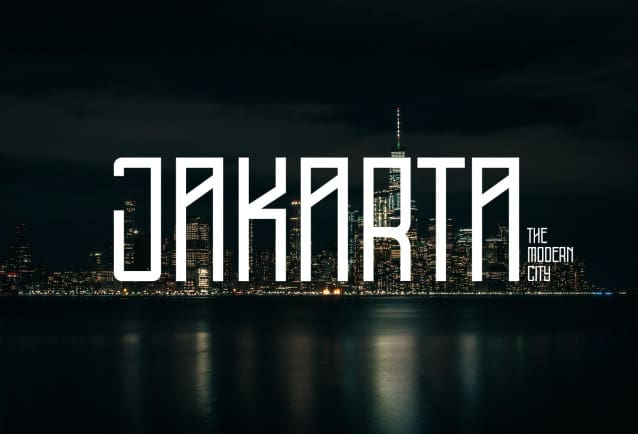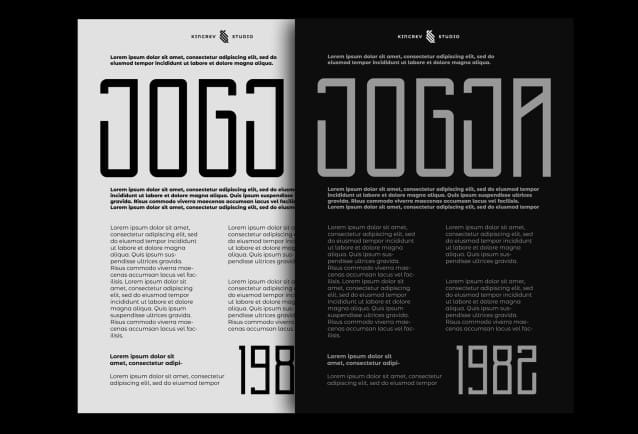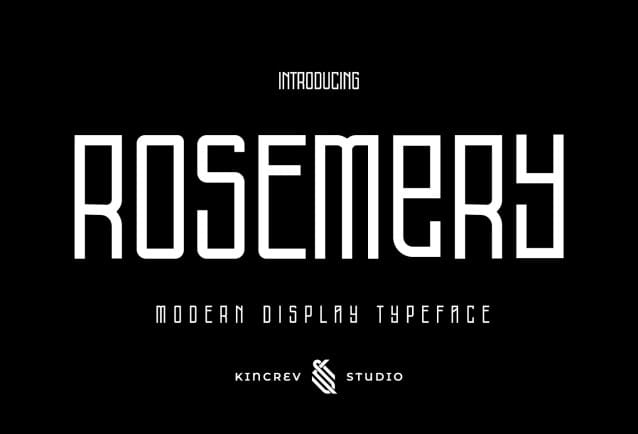
Rosemery Display Font
Rosemery Display Font, a Condensed Font for you to get your designs with simple and creative look. It is made in uppercase and lowercase letters which are easy on the eyes and nice to look at, and easy to read. This font is designed to bring your brandings to life and add a touch of modernity, fun and style.